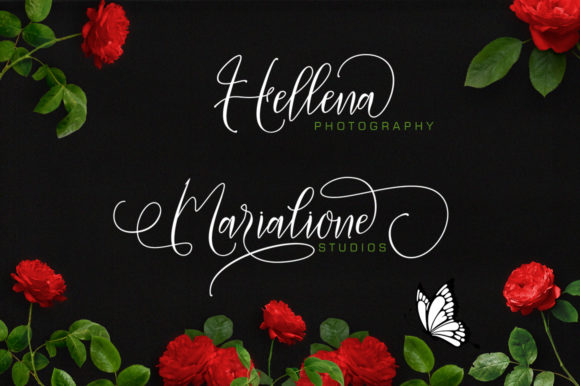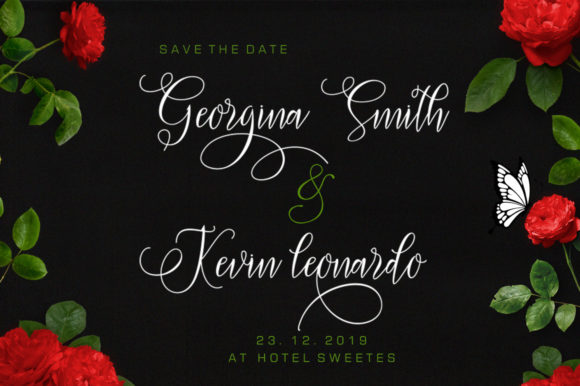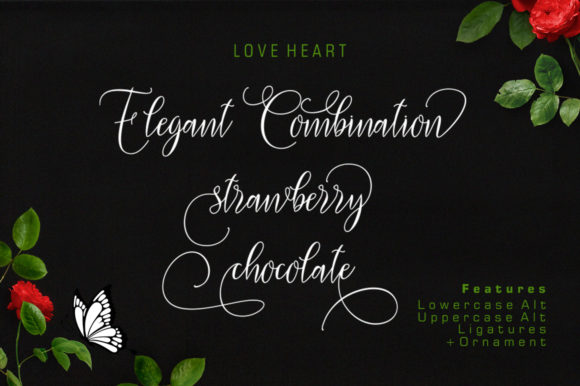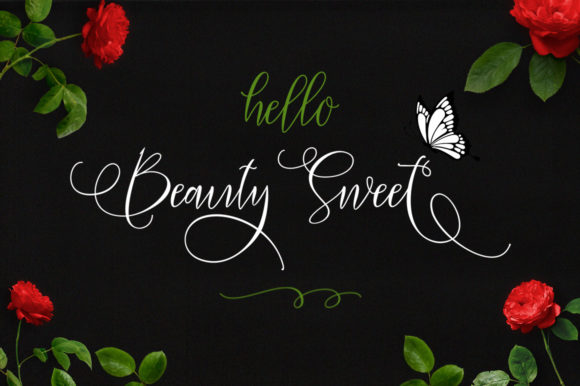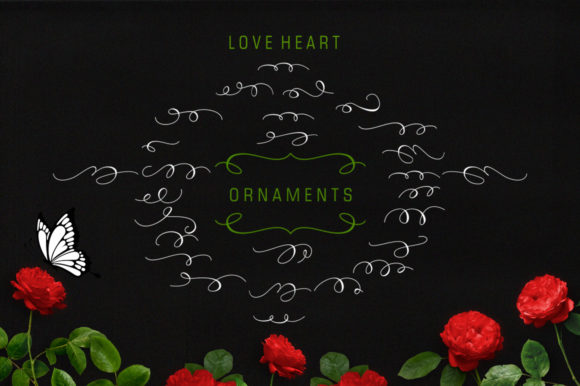
HomePersonal Use FreeLove Heart Personal Use Free Love Heart FacebookTwitterPinterestWhatsApp 1 of 6 About Love Heart Font With a calligraphy font for the ages, Love Heart contains beautiful and bold swashes. Add this lovely freebie to your creations and take your designs to the next level! DOWNLOAD NOW People also explored Mangollia Font Fresh Apple Font Carlony Font Halcyon – Sans Serif Font Bookmark Font Bulky Roselina Script Xenia Urshina Font Ballio Font 198 0 TagsLove Heart Font Previous articleBreatherNext articleLeadent Script LEAVE A REPLY Cancel reply Comment: Please enter your comment! Name:* Please enter your name here Email:* You have entered an incorrect email address! Please enter your email address here Website: Save my name, email, and website in this browser for the next time I comment. Personal Use Free Squealer Personal Use Free Read more about this font Omira Personal Use Free Read more about this font 1313 Mockingbird Lane Personal Use Free Read more about this font Yumail Personal Use Free Read more about this font BLOG Using Fonts in Digital Marketing: Tips to Strengthen Your Brand Identity In the realm of digital marketing, every visual element plays a crucial role in shaping a brand's identity, and fonts are no exception. The... Transform Your Website: Elevate Your Typography with 7 Best Web Font Generators Best Fonts for T-Shirt Design – Top 2025 Picks Exploring Font Trends